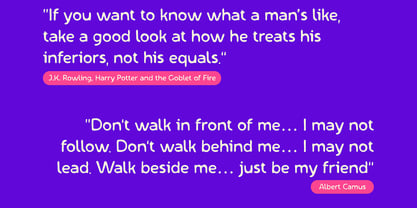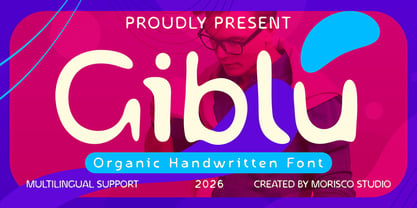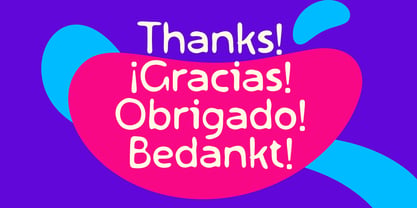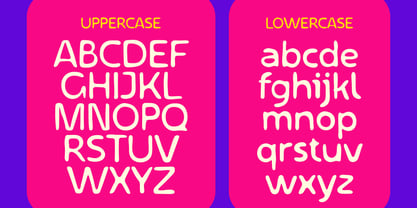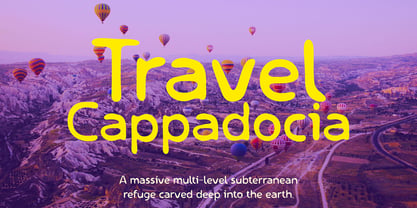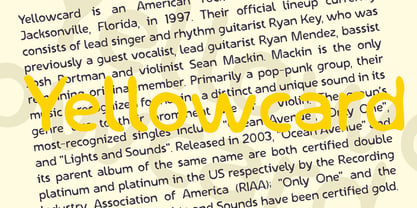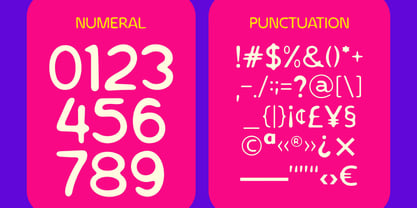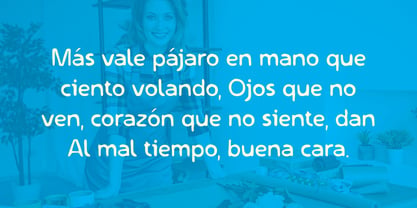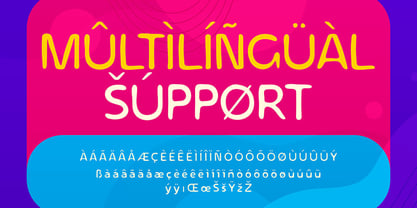
Giblu
La familia tipográfica Giblu fue diseñada por Fathur Rahman y publicada por Morisco Studio. Giblu contiene 1 estilos. Más información sobre esta familia
Giblu is a handwritten font with a unique character designed by Morisco Studio. This typeface is well-suited for headlines and any project, like branding, print templates, logos, and more.
Features:
* Uppercase & Lowercase
* Symbols & Punctuation
* Multilingual Support